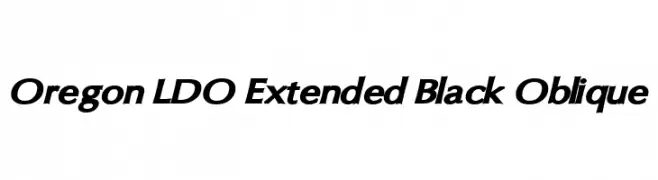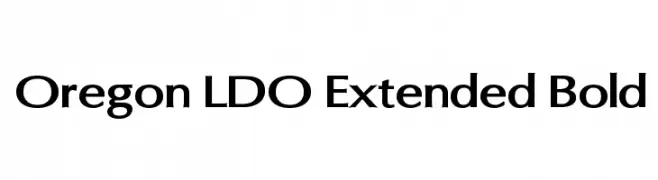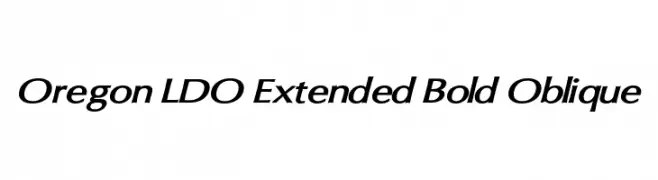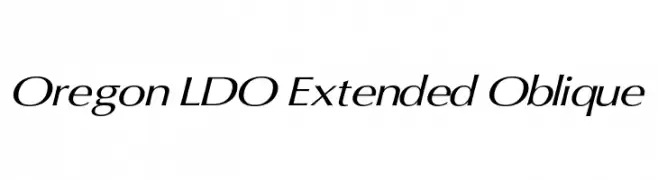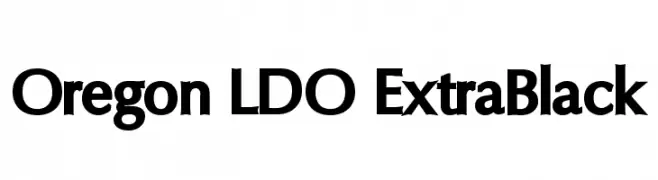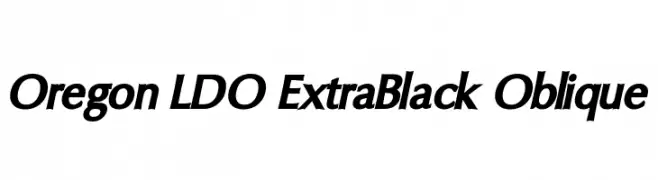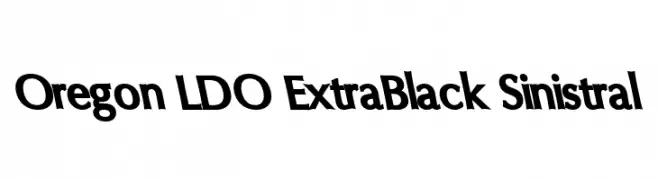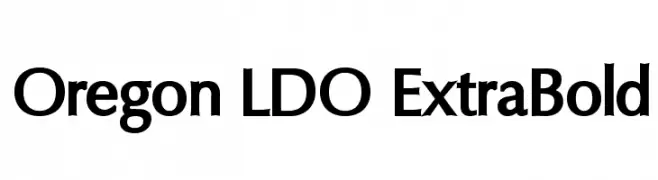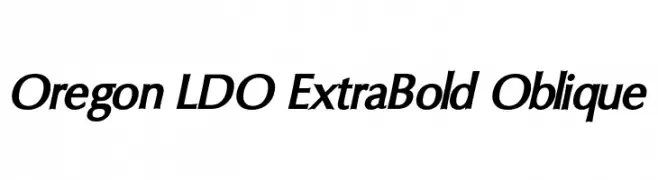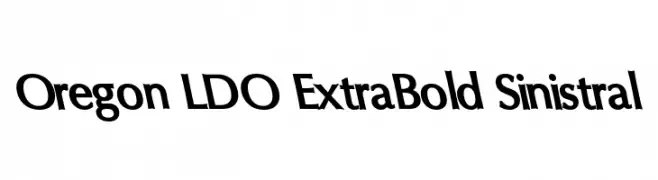
A bold, oblique, and extended font with a dynamic and modern style.
A bold, extended font with a modern and clean design, perfect for impactful headlines and branding.
A bold, oblique, and extended font with a modern and dynamic style.
An elegant oblique font with elongated, dynamic characters.
A bold, geometric font with strong strokes and modern appeal.
A bold, oblique font with a dynamic and energetic style.
A bold, slanted font with thick strokes and a dynamic style.
A bold, modern font with clean lines and a balanced structure, perfect for impactful designs.
A bold, oblique font with a modern and dynamic style.
A bold, left-slanted font with a modern and dynamic style.
A modern, high-contrast font with a sleek and elegant design.
An elegant, light oblique font with sleek, elongated characters.
A modern, elegant font with a light, airy appearance and subtle slant.
A modern, elegant font with balanced proportions and medium weight.
A modern oblique font with smooth, slanted letterforms and moderate contrast.
A modern, slightly slanted font with balanced proportions and clear numerals.
An elegant oblique font with smooth, flowing lines and a modern aesthetic.
A modern, elegant font with a slight slant and subtle contrast, perfect for versatile use.
A bold, slightly slanted font with a modern and dynamic style.
A bold, ultra-black serif font with a dynamic and modern style.
A bold, ultra-black oblique font with strong, dynamic strokes.
A bold, slanted font with thick strokes and dynamic energy.
A serif font with a vanishing line effect, blending classic and modern styles.
A bold, modern font with a vanishing line effect and high contrast.
A bold, oblique font with a vanishing effect created by horizontal lines.
A modern oblique font with a vanishing line effect, offering a dynamic and sleek appearance.
An ornate and decorative font with intricate flourishes and historical charm.
An ornate, decorative font with characters in circular button shapes.
Highly decorative ornamental motif font with floral and geometric elements.
A collection of abstract and geometric symbols in various shapes.
Cartoonish, political caricature font with unique illustrated glyphs.
Comic panel-inspired, illustrative display font.